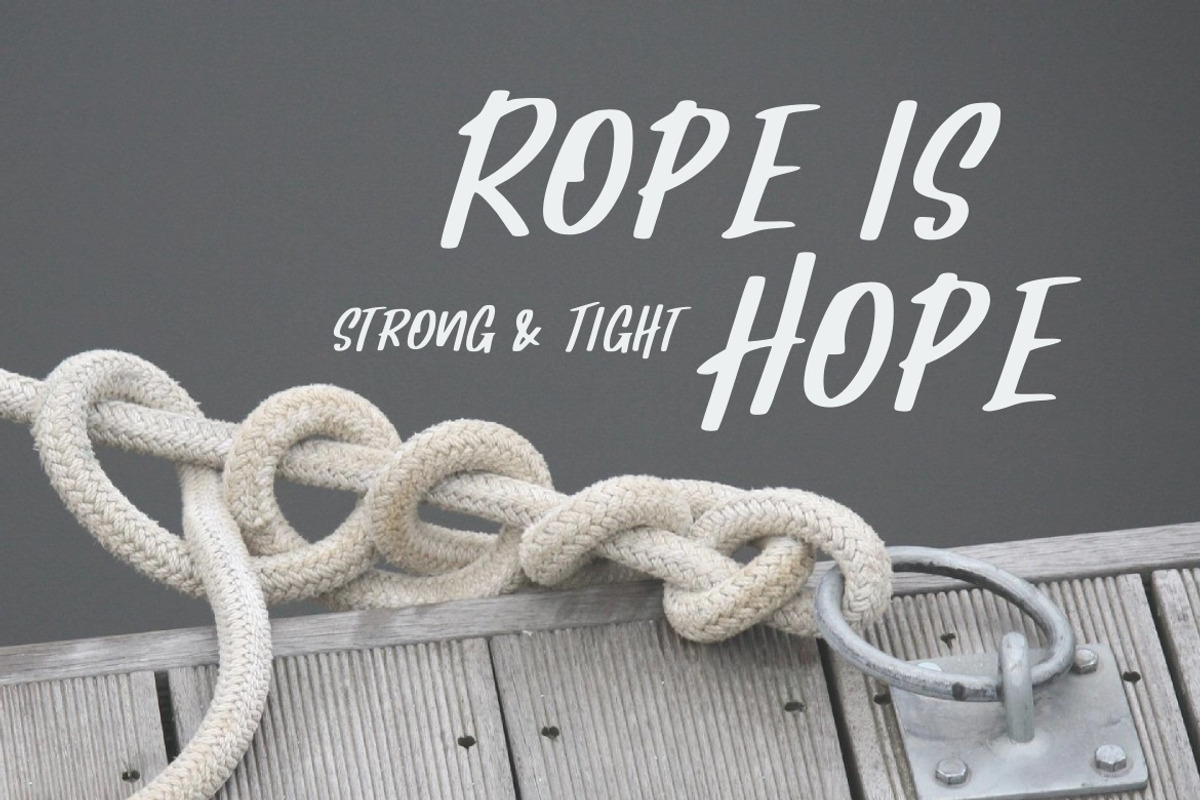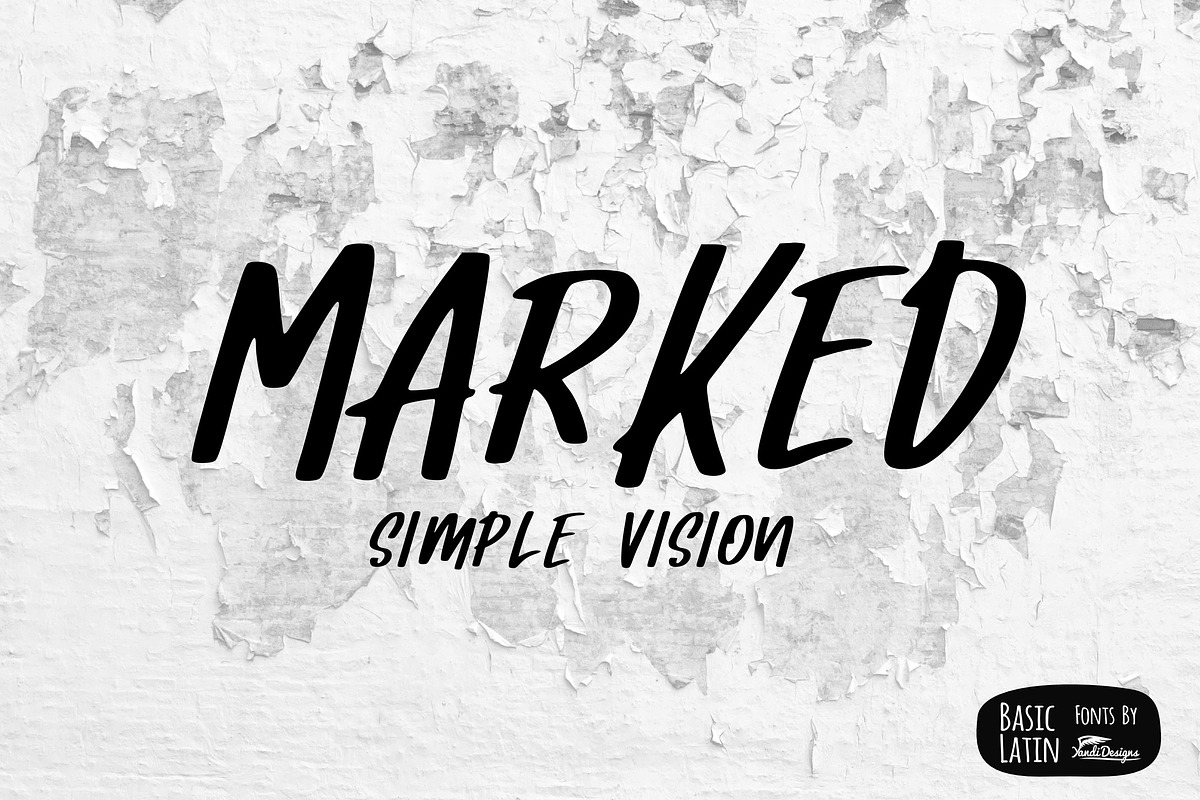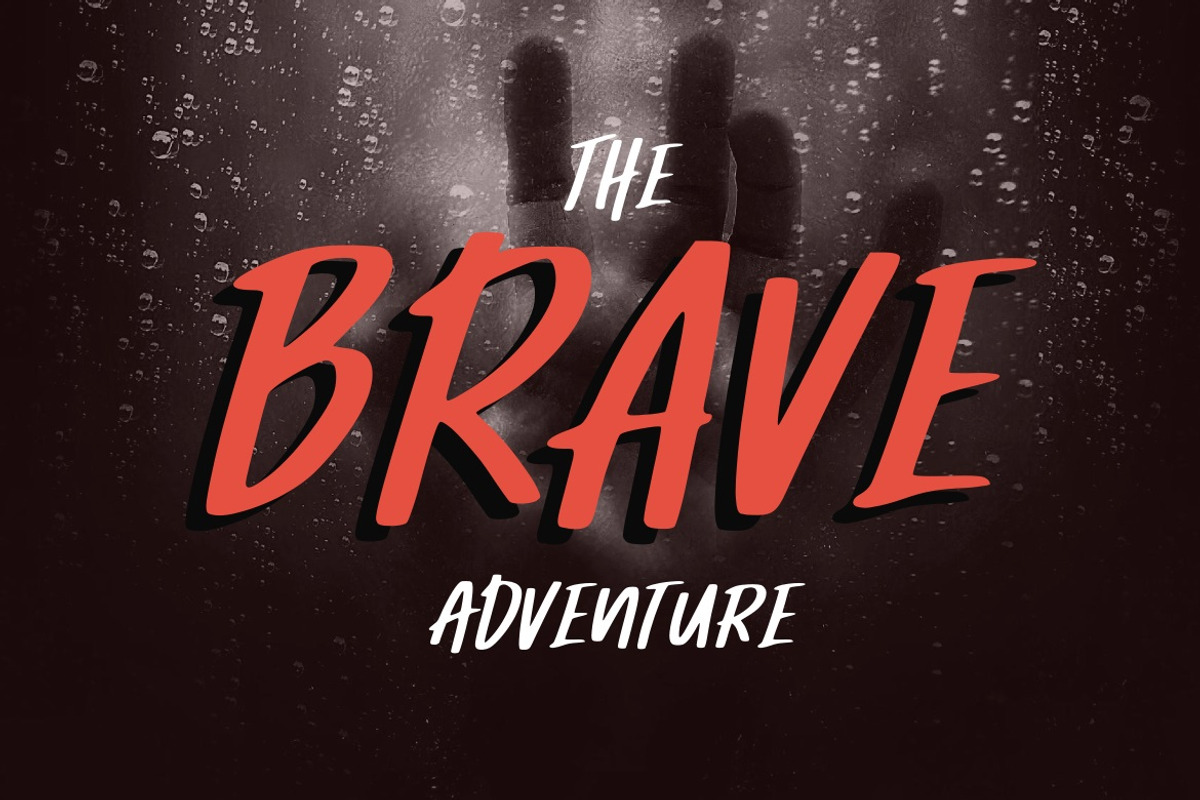
Marked Simple Marker Font
Simple marker font , suitable for many project , quotes, logo , doodle, heading , title etc.
Why Marked Simple Marker Font is worth a look
Marked Simple Marker Font by YandiDesigns fits naturally into Branding, posters, packaging, typography.